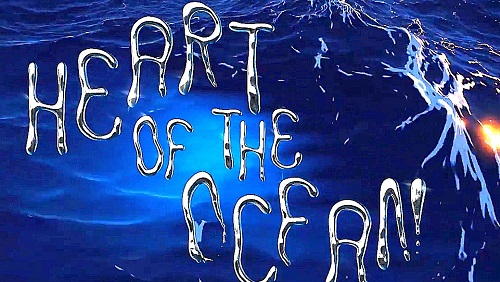
The Chromatic Typeface 2407836
This After Effects template features 3D liquid chrome typeface. It includes a set of 52 alphabet characters,
4 abstract chrome elements, and 4 close-up zoom shoots. The template also includes 3 pre-designed backgrounds,
9 color presets, and 5 distorting effect presets. You can edit the text, place your media, and adjust the
colors to match your style. A tutorial video is included. Available in 4K.